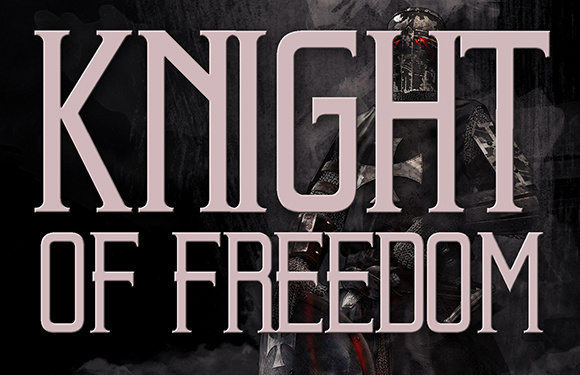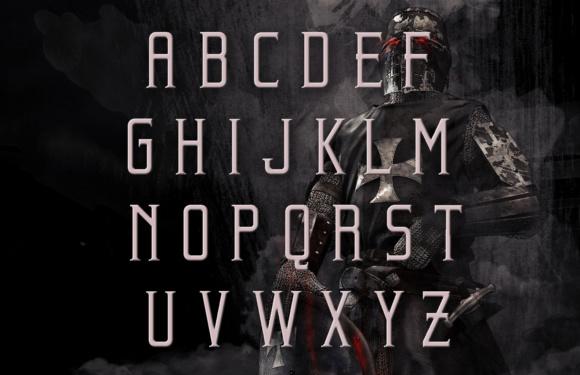
Unleash Your Creativity with the Beholder Font
Remember the moment when you first saw a poster or a flyer that caught your eye? The font was bold, mysterious, and it drew you in. That’s exactly what you can achieve with the Beholder Font, a stunning Gothic style font family that’s sure to make your designs stand out.
Beholder Font comes in 5 styles, each with its own unique character, making it perfect for a wide range of projects, from t-shirts and banners to flyers and brochures. As a designer, you know how valuable it is to have a versatile font that can elevate your work and help you convey your message effectively.
Beholder Font Key Features
- Font Family: Beholder is a sans-serif font family with a unique, futuristic design.
- Unique Characteristics: Beholder’s distinctive features include a geometric shape, a wide range of weights, and a futuristic feel.
Designer Review: Beholder Font
Overall, I think the Beholder Font has some great qualities that make it a solid addition to any designer’s toolkit. ✨ One of its standout features is its versatility – it can be used for both digital and print projects, and it looks great in a variety of contexts. The font is also highly customizable, with a range of weights and styles available to suit different design needs.
Another thing I appreciate about Beholder Font is its unique aesthetic. It has a distinct, futuristic feel that can really add some visual interest to a project. The font is also highly legible, which is a must for any font intended for large-scale use.
- ⚠️ Not as extensive a character set as some other fonts – if you need a font with a huge range of characters and symbols, Beholder might not be the best choice.
- ⚠️ Some users have reported issues with kerning – while the font looks great at large sizes, it can be a bit wonky at smaller sizes.
Overall, I think the Beholder Font is a solid choice for designers who want a versatile, customizable font with a unique aesthetic. While it may have some limitations, it’s definitely worth considering for your next project.
Tip: Use Beholder Font for titles and headings to add a touch of elegance and sophistication to your designs.
Tip: Use Beholder Font in combination with bold lines or shapes to create a striking visual effect.
Tip: Use Beholder Font for titles and headings to add a touch of sophistication and elegance to your presentations and documents.
Beholder Font is perfect for:
- Designing luxury brand identities.
- Creating elegant titles and headings.
- Adding a touch of sophistication to presentations and documents.
Compared to Beholder Font, Playfair Display is more ornate and luxurious, with a stronger focus on sophistication and elegance. While Beholder Font is versatile and modern, Playfair Display is best used for high-end designs that require a touch of luxury.
Compared to Beholder Font, Museo is more geometric and modern, with a stronger focus on technology and innovation. While Beholder Font is versatile and adaptable, Museo is best used for brands that want to convey a sense of forward-thinking and progress.
Great Vibes is a stylish, modern script font perfect for creative brands, artists, and musicians. It features a unique, hand-drawn feel that adds a touch of personality to designs. Great Vibes works well for logos, posters, and other visual materials.
Can I customize the Beholder Font to fit my project’s specific needs?
Yes, as a variable font, the Beholder Font offers a wide range of customization options. You can adjust the font’s weight, width, slant, and x-height to fit your project’s unique requirements. You can also use font editors like FontForge or Glyphs to customize the font’s glyphs and metrics.